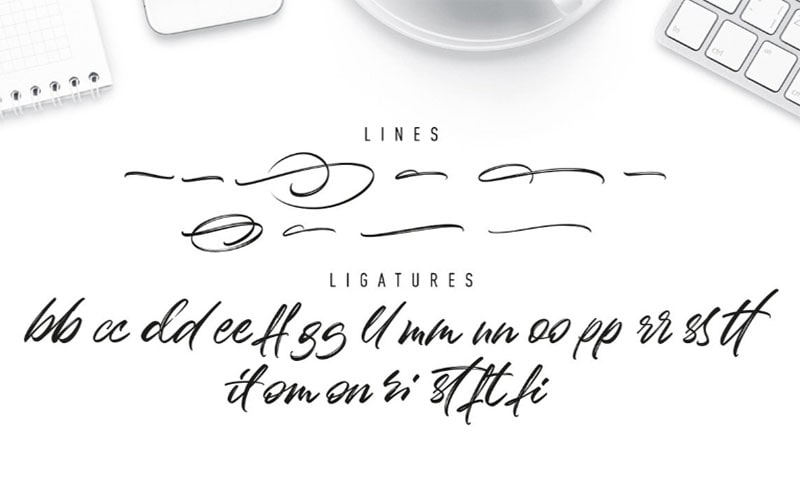
Badass Moon Font is a distinctive and edgy typeface that brings boldness and uniqueness to any project, was designed by the innovative typographer StereoType.
Known for his ability to create typefaces that combine contemporary aesthetics with unique flair, StereoType has established himself as a prominent figure in modern typography.
His work often pushes the boundaries of traditional design, offering fresh and dynamic typefaces that stand out in any context. It comes in several styles, enhancing its versatility.
Adds a dynamic slant, perfect for creating emphasis and adding a touch of movement to text. The standard style features bold, striking letterforms that command attention.
Badass Moon
| Font Name: | Badass Moon Font |
| Style: | Brush, Script, Typeface |
| Font Designer: | StereoType |
A thicker version that amplifies the font’s impact, is ideal for headlines and titles. Perfect for creating memorable and distinctive brand identities that need a bold and edgy look.
Provides a modern and unique aesthetic for websites, ensuring a strong visual presence. Ideal for promotional materials that need to grab attention and convey a strong message.
Features a strong, condensed design that complements the boldness of Badass Moon such as Midnight Font designed by Alpaprana Studio, and Whisper Font made by Mans Greback.